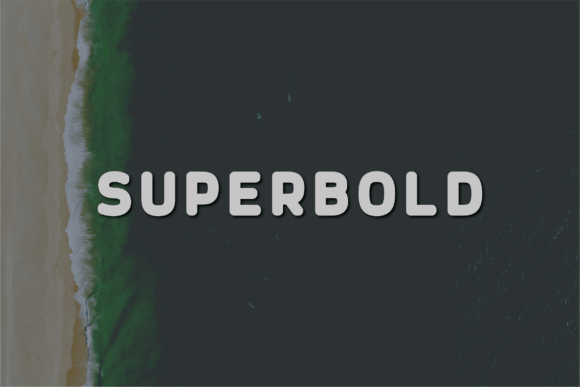
**Superbold: The Font That Transforms Your Words into Works of Art**
In a world where first impressions matter, your resume is your gateway to success. It's your chance to showcase your skills, experiences, and aspirations to potential employers. But let's face it, a bland, ordinary resume is as likely to get noticed as a needle in a haystack.
That's where Superbold comes in. This captivating sans serif font is the secret weapon you need to make your resume stand out from the crowd. With its bold, modern lines and a touch of elegance, Superbold commands attention and invites recruiters to delve deeper into your qualifications.
**Why Choose Superbold?**
* **Attention-Grabbing:** Superbold's bold strokes instantly draw the eye, ensuring your resume gets noticed amidst a sea of applications.
* **Modern and Sophisticated:** Its clean, contemporary lines exude professionalism and sophistication, giving your resume a polished and polished look.
* **Versatile:** Whether you're crafting a resume for a creative industry or a corporate setting, Superbold's adaptability ensures it complements any style.
* **Easy to Read:** Despite its bold appearance, Superbold maintains excellent readability, making it easy for recruiters to scan your resume and identify key information.
* **Perfect for Logos and Branding:** Superbold's versatility extends beyond resumes. Its striking presence makes it an ideal choice for logos, branding, and any project that demands a bold and memorable statement.
**Unlock Your Resume's Potential with Superbold**
With Superbold, you're not just downloading a font; you're investing in the power to transform your resume into a masterpiece that opens doors to new opportunities.
Imagine your resume adorned with Superbold's elegant strokes, exuding confidence and professionalism. Imagine recruiters pausing to admire your bold and creative approach, eager to learn more about the exceptional candidate behind the words.
Superbold is more than just a font; it's a game-changer. It's the key to unlocking your resume's full potential and showcasing your skills and experiences in a way that captivates and inspires.